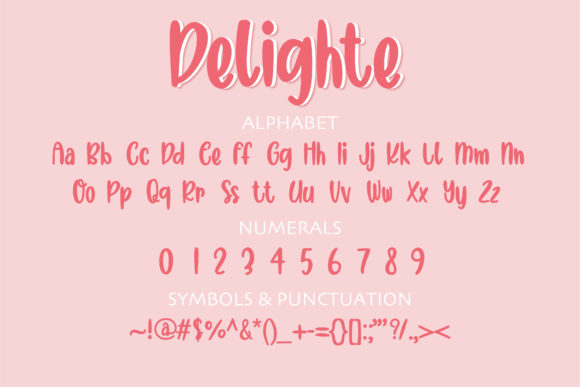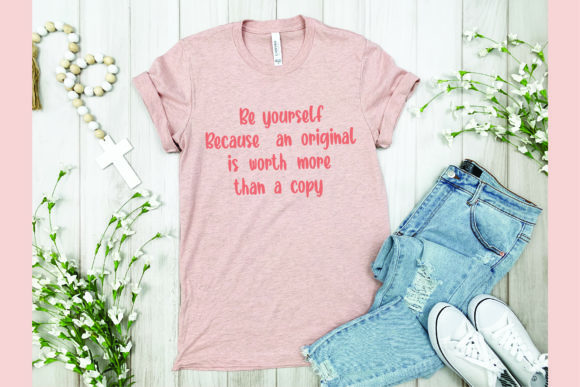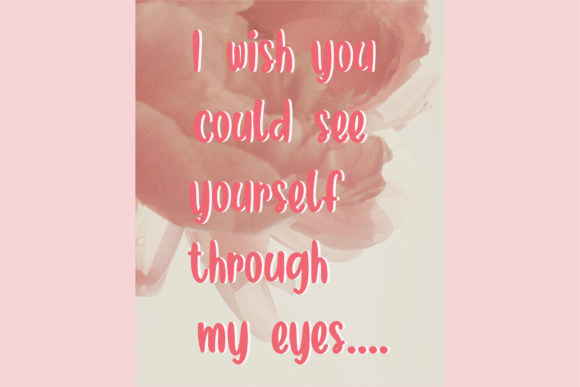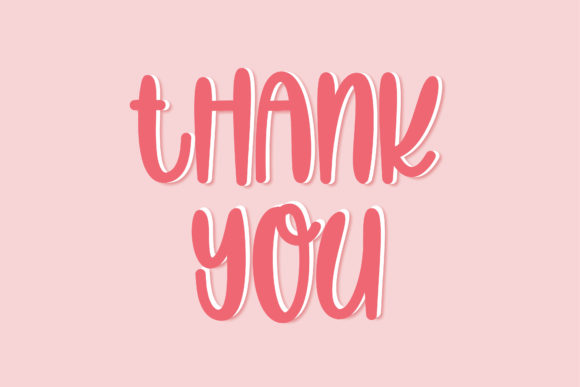
Introducing Delighte Font: Elevate Your Designs with Elegance and Flair
Are you on the hunt for a font that exudes sophistication, elegance, and a touch of whimsy? Look no further than Delighte Font, a stunning script font that is sure to become a treasured addition to your design arsenal. With its flowing lines, chic aesthetic, and versatility, Delighte is the perfect choice for designers, crafters, and creatives of all kinds.
The Beauty of Delighte Font
Delighte Font is a masterclass in elegant script design. Its flowing lines and curves evoke a sense of movement and fluidity, making it perfect for projects that require a touch of sophistication and glamour. Whether you’re working on a logo, branding materials, or a craft project, Delighte is sure to add a level of refinement and polish that will elevate your design to the next level.
What Makes Delighte So Special?
So, what sets Delighte apart from other script fonts on the market? Here are just a few reasons why Delighte is a cut above the rest:
- Unique and Versatile: Delighte is a one-of-a-kind font that can be used for a wide range of projects, from wedding invitations and stationery to logos, branding materials, and more.
- Elegant and Refined: With its flowing lines and sophisticated aesthetic, Delighte is the perfect choice for projects that require a touch of elegance and refinement.
- Easy to Read: Despite its ornate appearance, Delighte is surprisingly easy to read, making it perfect for use in both digital and print applications.
- Highly Customizable: Delighte comes with a range of customization options, allowing you to tailor the font to your specific needs and preferences.
Delighte Font is a dream come true for designers and crafters of all kinds. Whether you’re working on a client project or creating something for your own enjoyment, Delighte is the perfect choice for:
- Logo Design: Create stunning logos that showcase your brand’s personality and style with Delighte.
- Branding Materials: Use Delighte to create cohesive branding materials, including business cards, letterheads, and more.
- Stationery and Invitations: Add a touch of elegance to your stationery and invitations with Delighte.
- Craft Projects: Use Delighte to add a personal touch to your craft projects, including scrapbooking, card making, and more.
Tips for Using Delighte Font
To get the most out of Delighte Font, here are a few tips to keep in mind:
- Use it Sparingly: Delighte is a bold and eye-catching font, so use it sparingly to avoid overwhelming your design.
- Experiment with Pairings: Try pairing Delighte with other fonts to create a unique and visually appealing combination.
- Pay Attention to Size: Delighte is a highly detailed font, so make sure to use it at a size that allows the intricacies to shine through.
In conclusion, Delighte Font is a truly exceptional script font that is sure to become a staple in your design library. With its elegant aesthetic, versatility, and ease of use, Delighte is the perfect choice for designers, crafters, and creatives of all kinds. Whether you’re working on a client project or creating something for your own enjoyment, Delighte is sure to elevate your design to the next level.